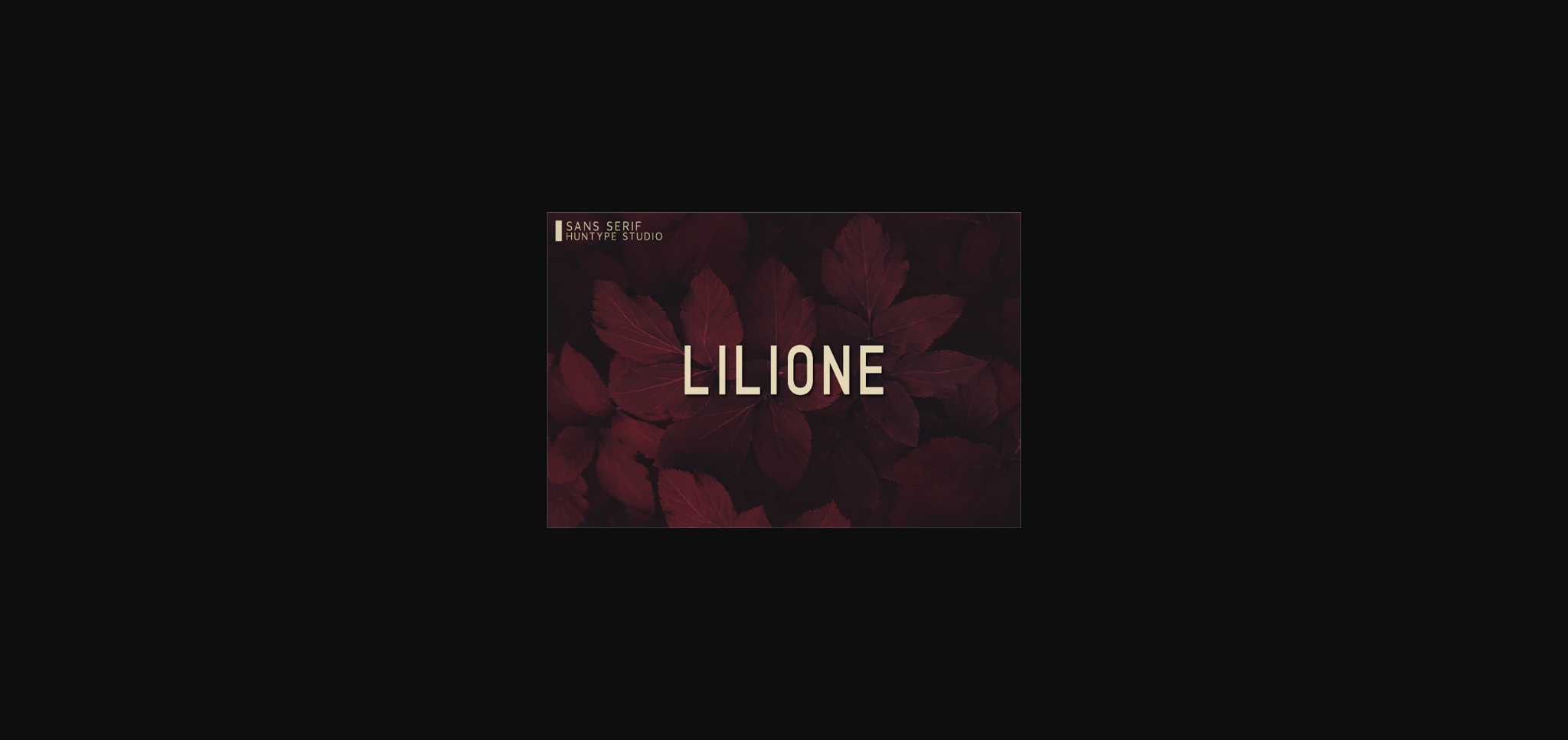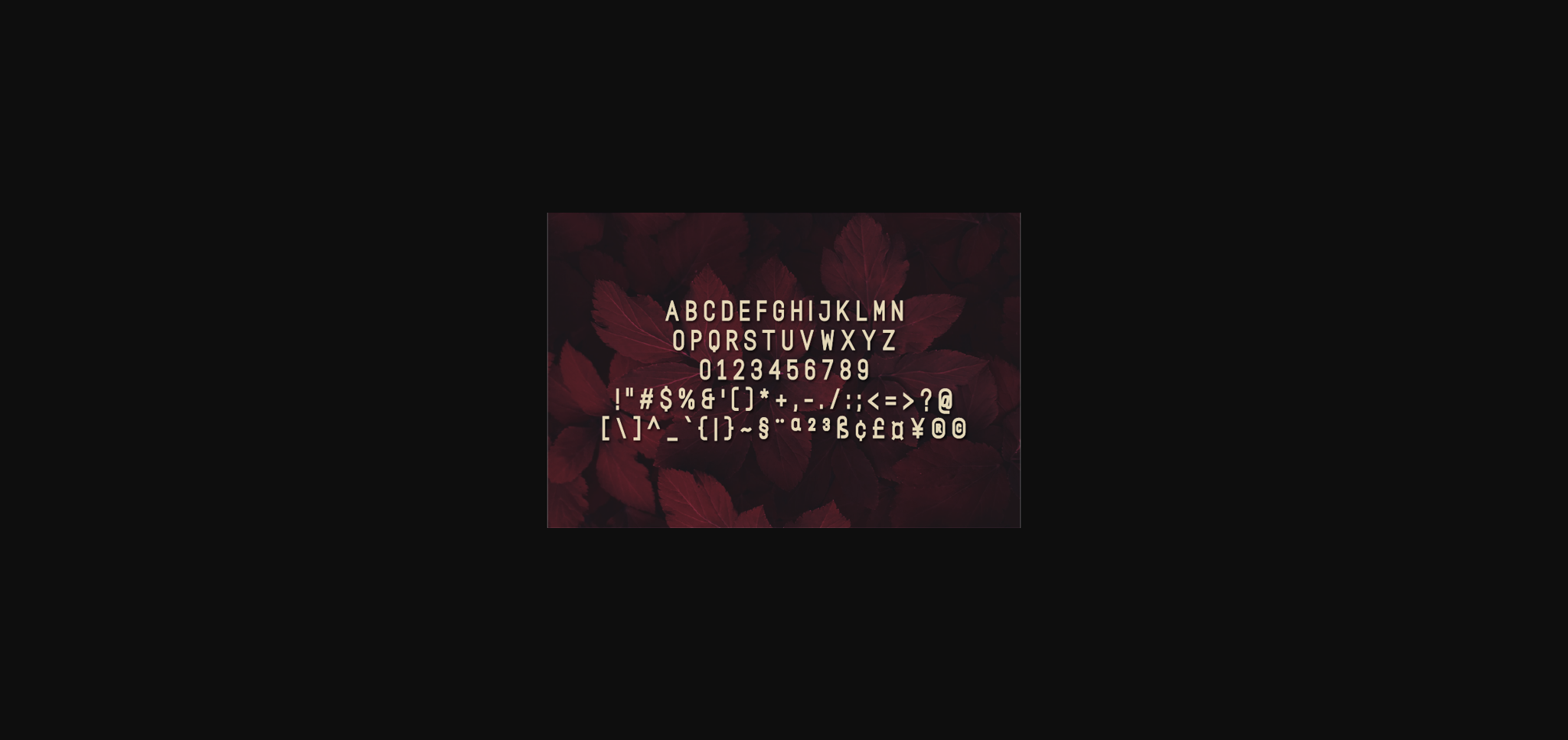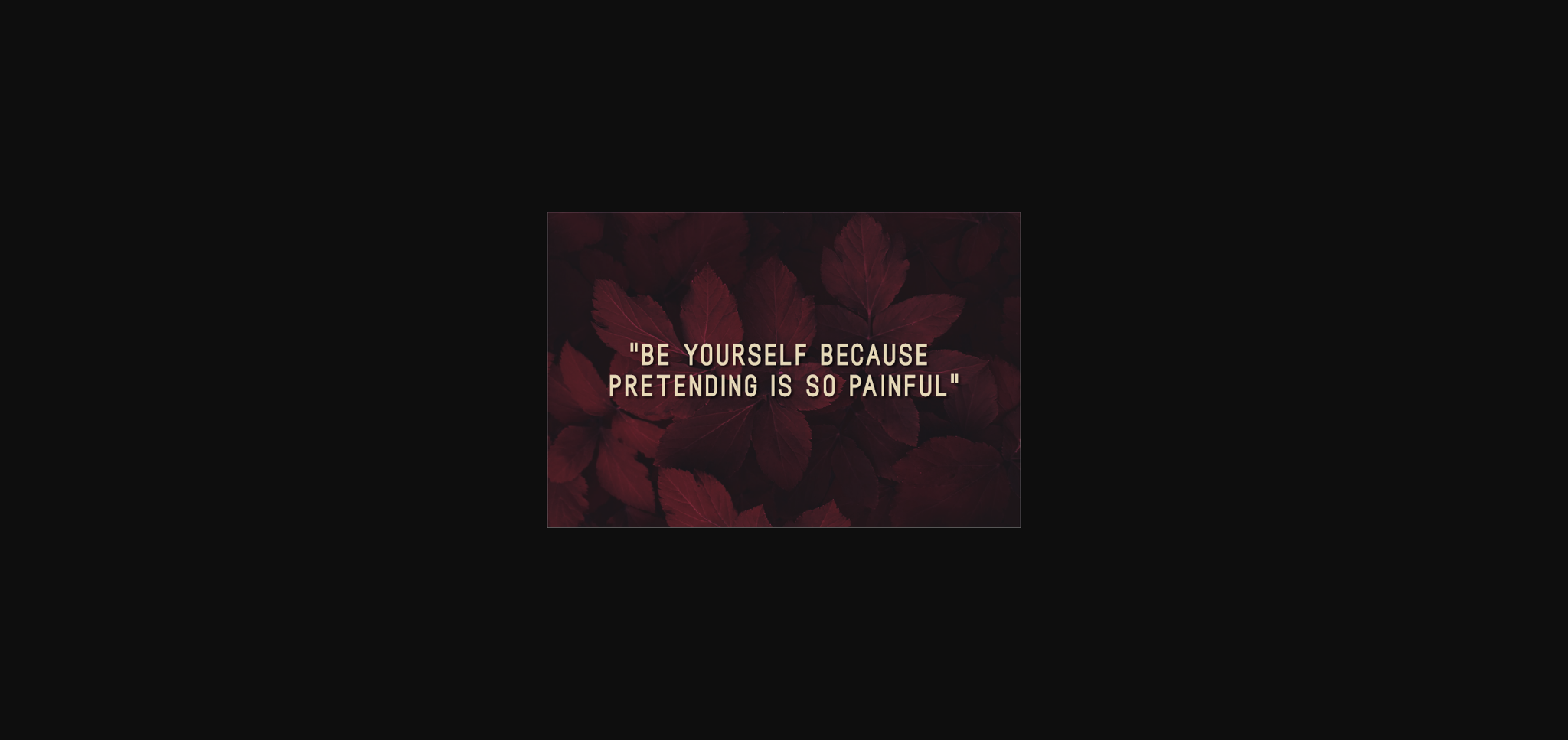
Lilione Font
About Lilione Font
Lilione is a simple, clean yet elegant sans serif font. Suitable to a wide variety of designs, this font has the potential to become your favorite go-to font, no matter the occasion!